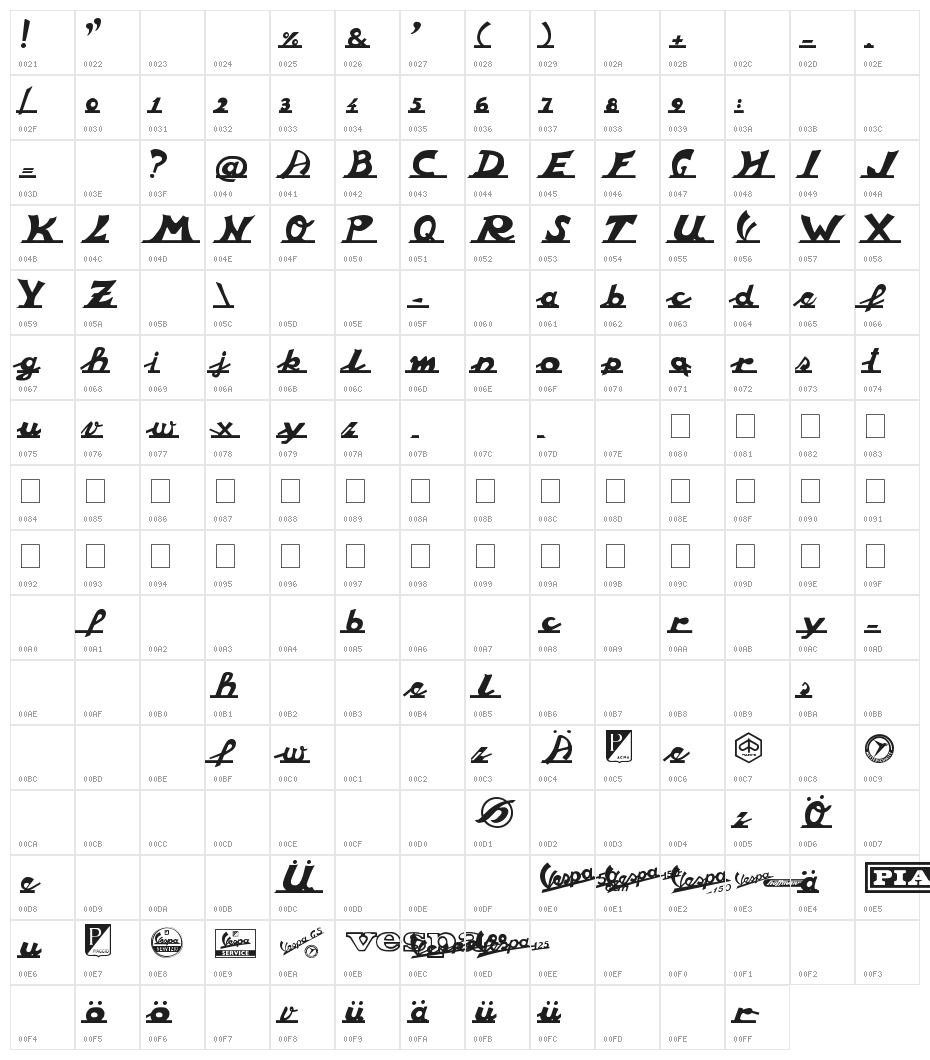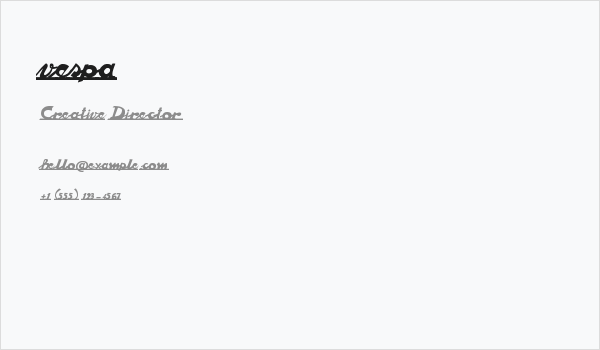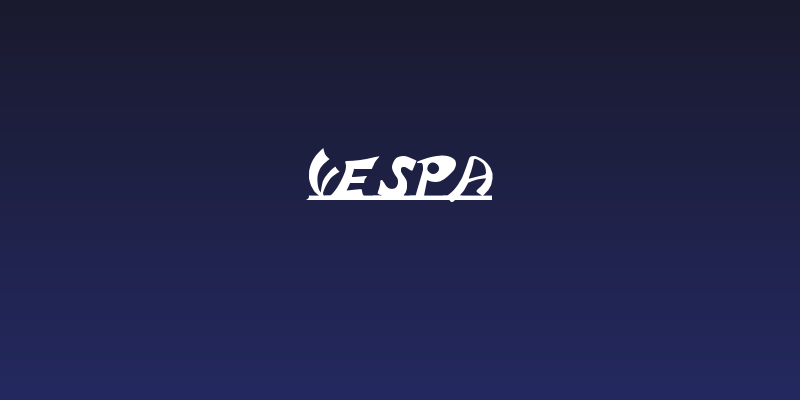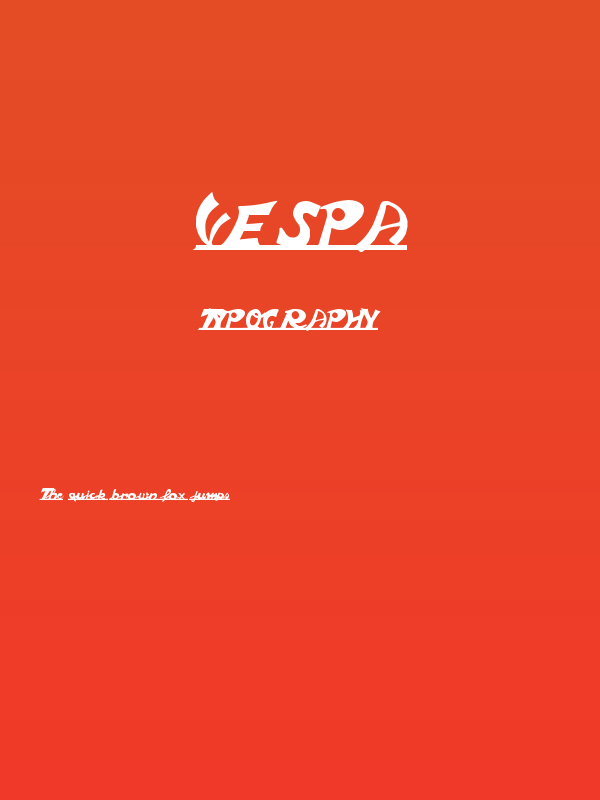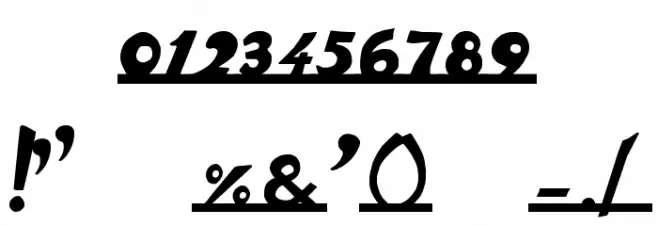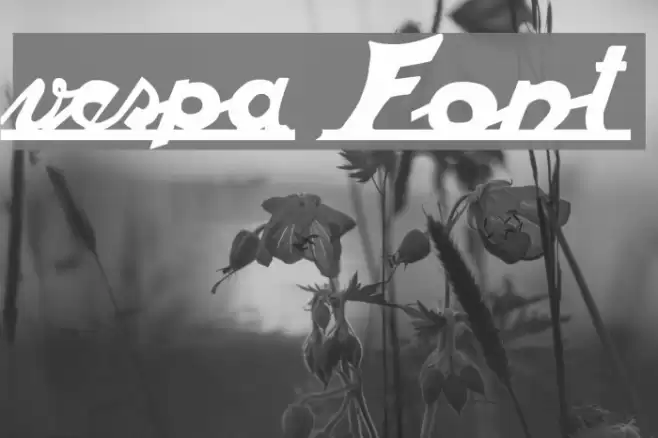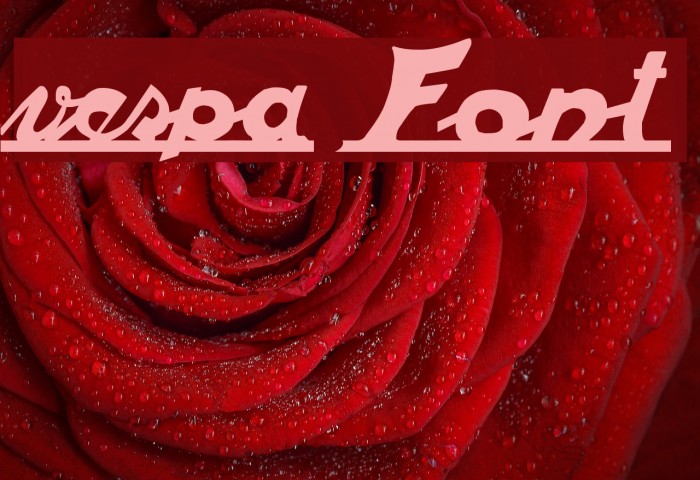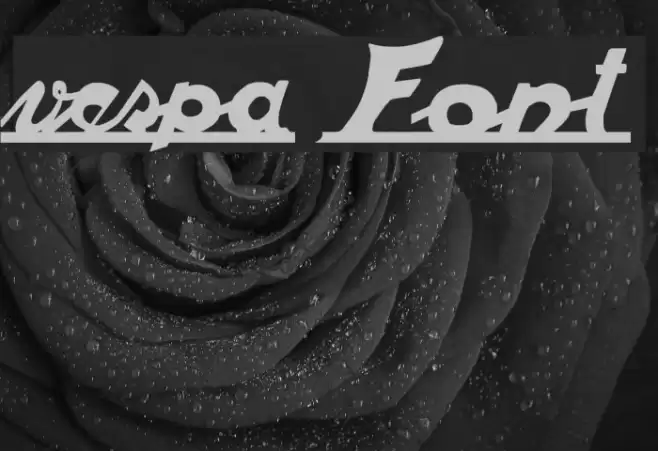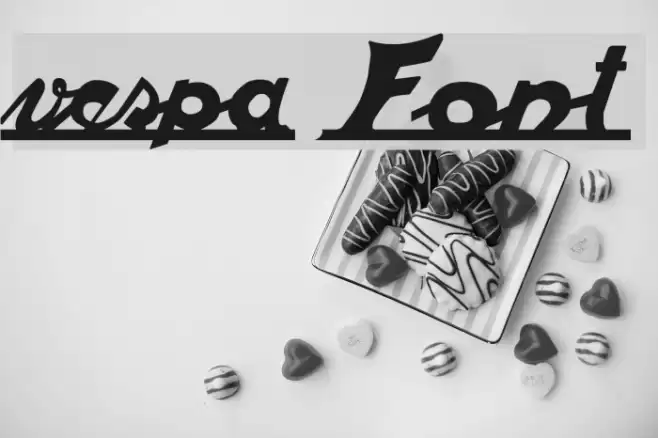
vespa Font
vespa Description
This font features a dynamic and bold script style with a strong emphasis on fluidity and movement. The characters are connected, creating a sense of continuity and flow. The uppercase letters are particularly striking, with dramatic flourishes and a sense of elegance. The lowercase letters maintain this fluidity, offering a harmonious blend of curves and angles. The numbers and special characters are consistent with the overall style, providing a cohesive look. This font is ideal for projects that require a touch of sophistication and flair.
| Use Case | Logos, Invitations, Artistic projects |
| Proposed Projects | Ideal for branding, invitations, and artistic projects that require a touch of elegance and sophistication. |